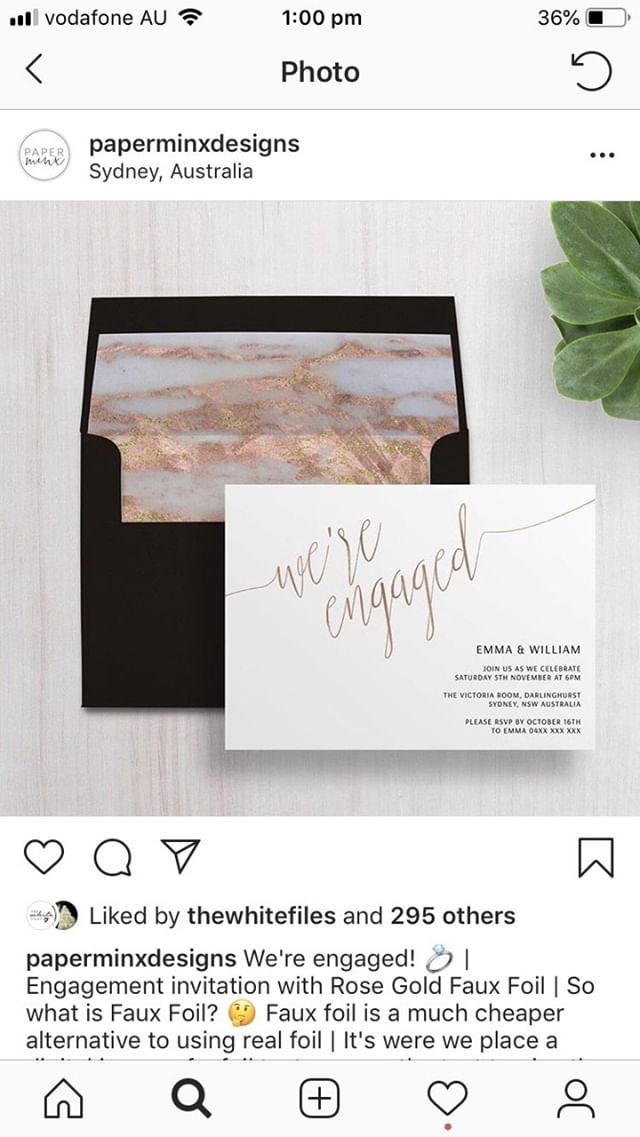
Was hoping to find this font or something similar for some wedding invites.
That is most likely done by hand (as are a lot of wedding invitations), however I’m sure there are other script calligraphy style fonts that you can find.
Looks very close to but not an exact match of … GoGipsy Italic
This font is look like Chameleon Pen by fontforecast